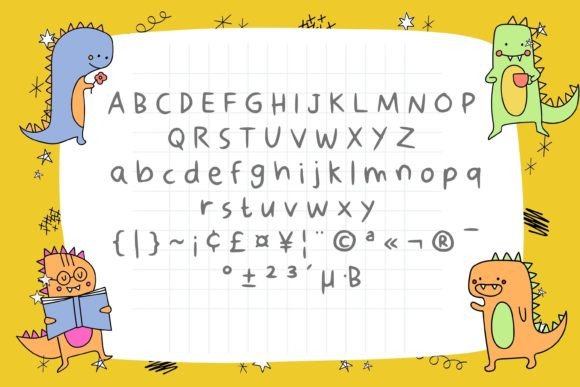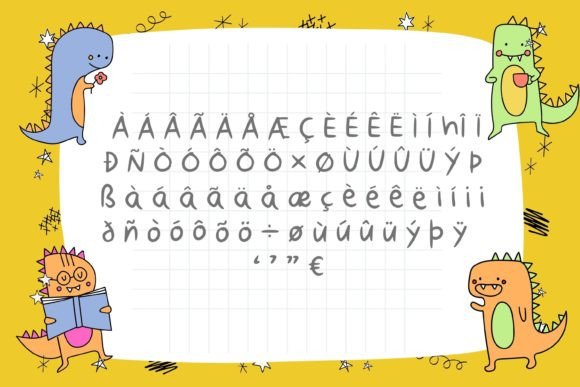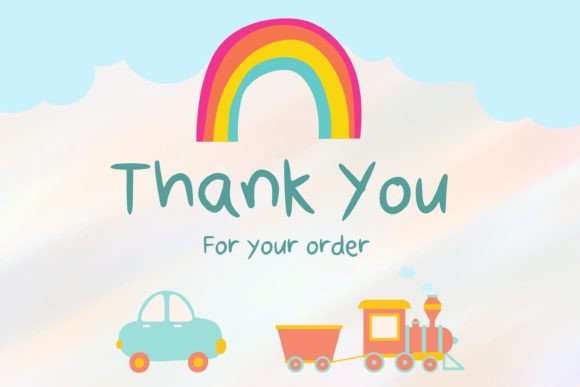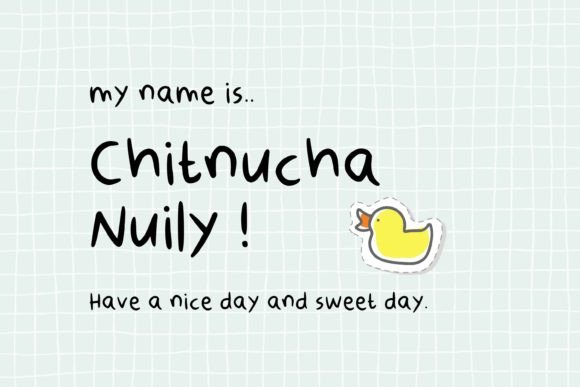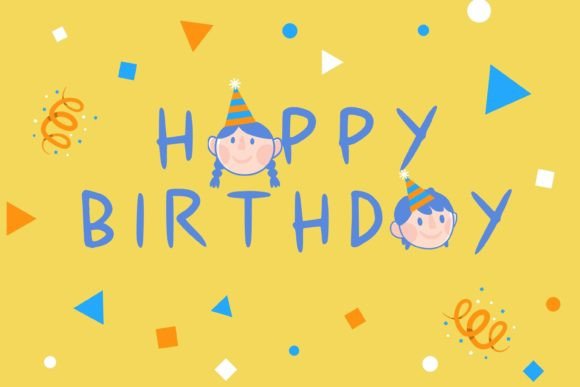
Introduction to Disordered Font
Disordered is a childish handwritten font.
Its cute, friendly, natural, and unique style makes it incredibly fitting to a large pool of designs The only limit is your imagination.
Key Features of Disordered Font